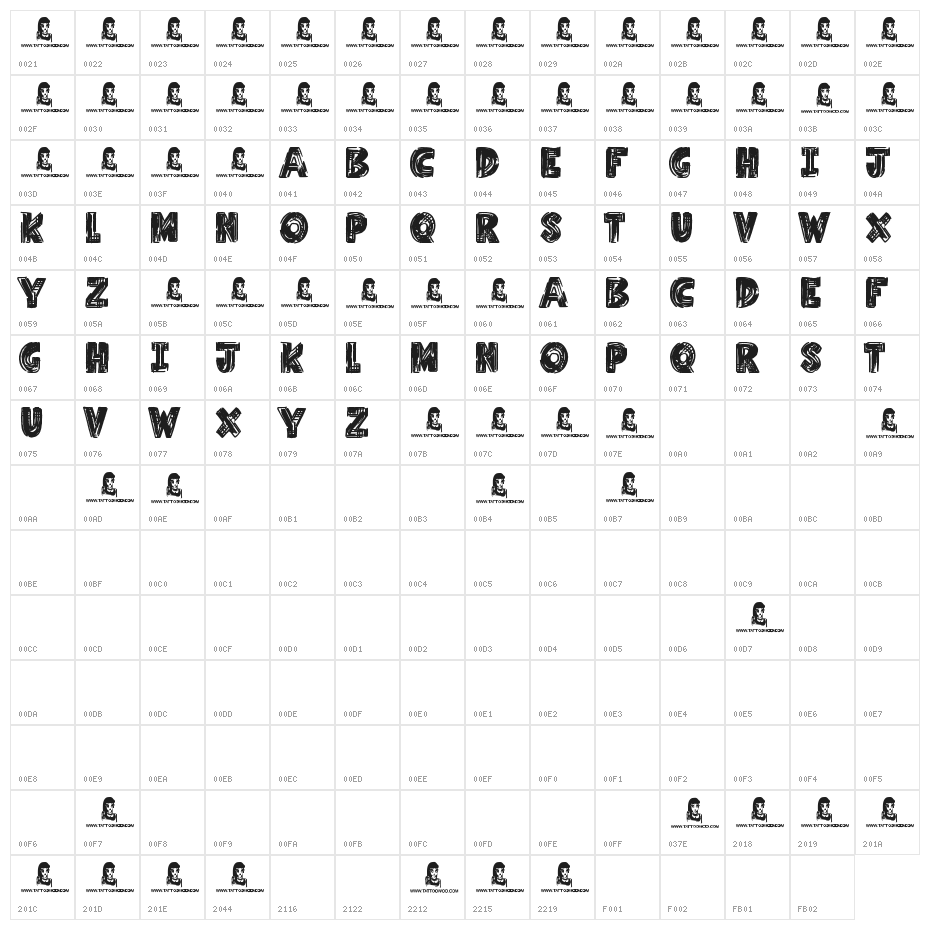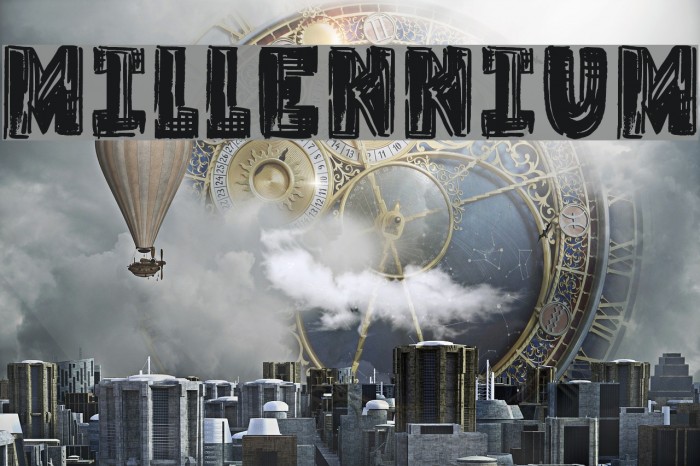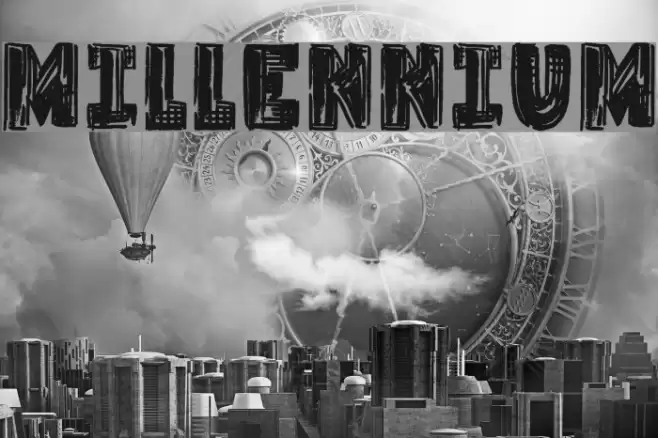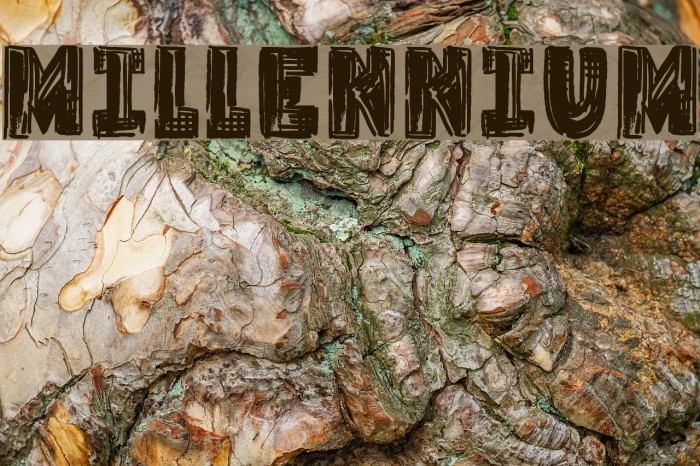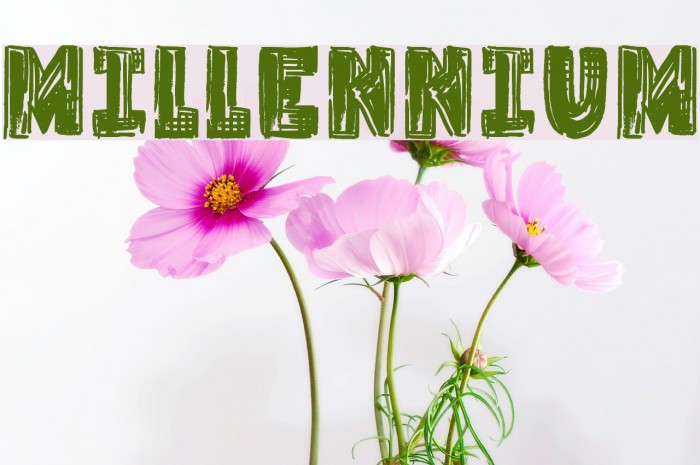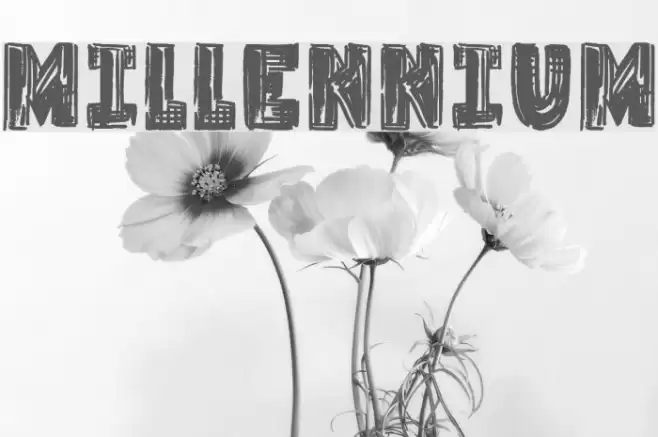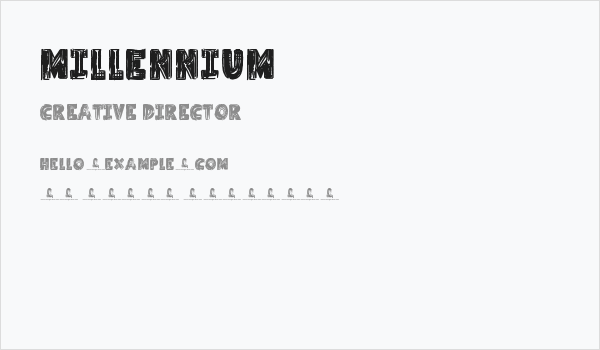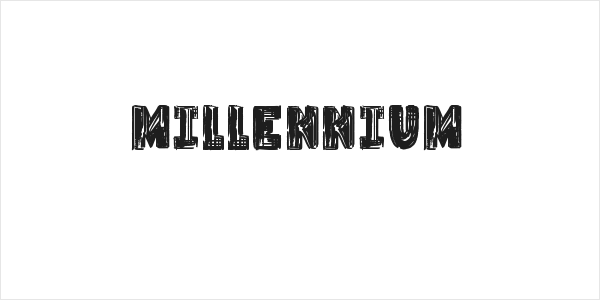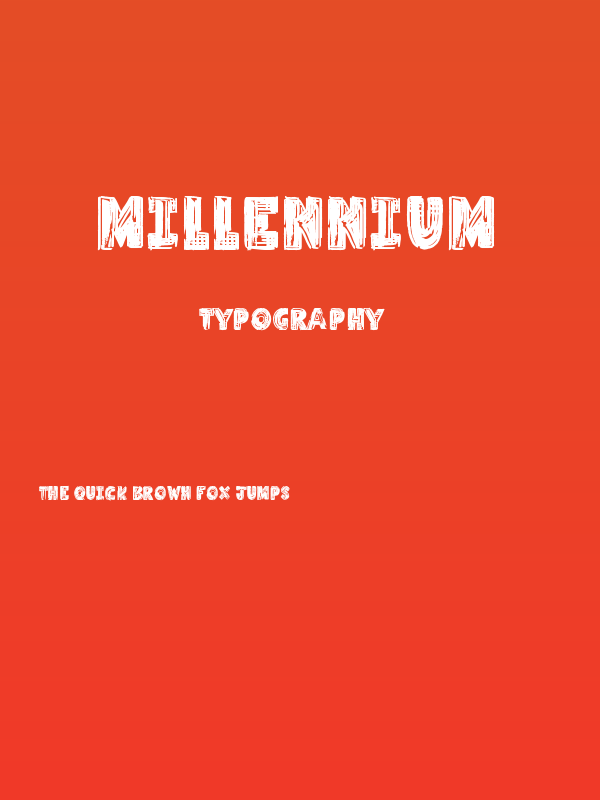
Millennium Font
Millennium Description
This font features a bold and dynamic style with a hand-drawn appearance. The characters are filled with intricate line patterns, giving them a textured and artistic look. The uppercase letters are particularly striking, with a strong presence that commands attention. The font's playful and creative design makes it suitable for projects that require a unique and eye-catching aesthetic. It conveys a sense of energy and movement, making it ideal for creative and informal applications.
| Proposed Projects | Ideal for posters, album covers, children's book titles, and creative branding projects. |